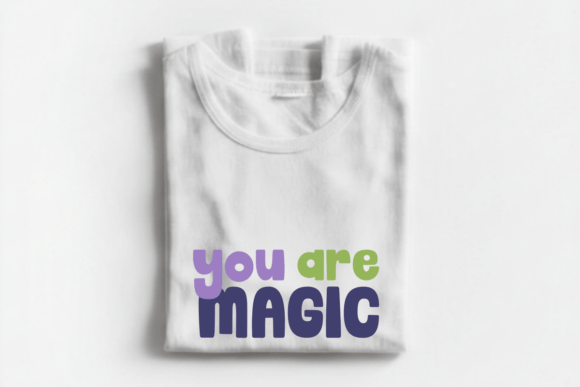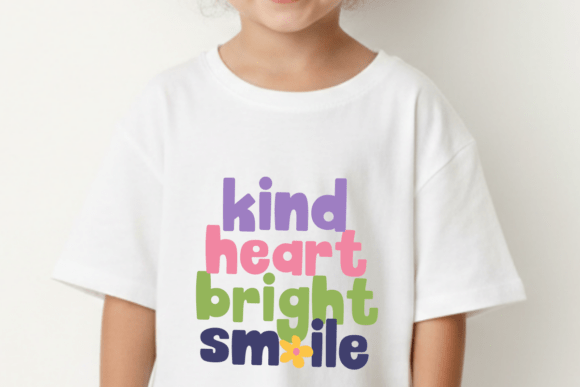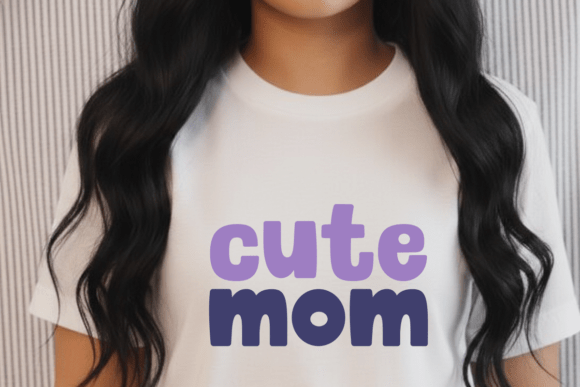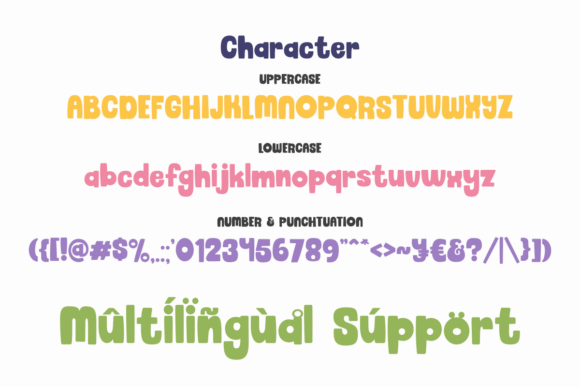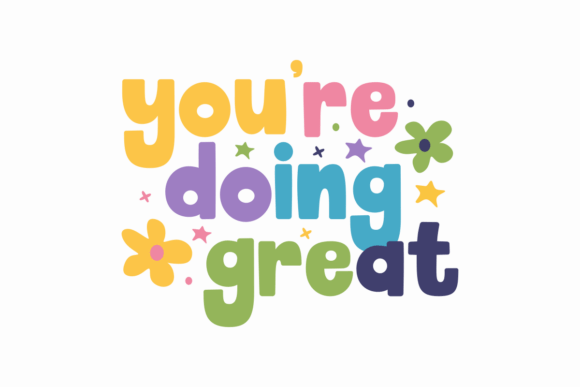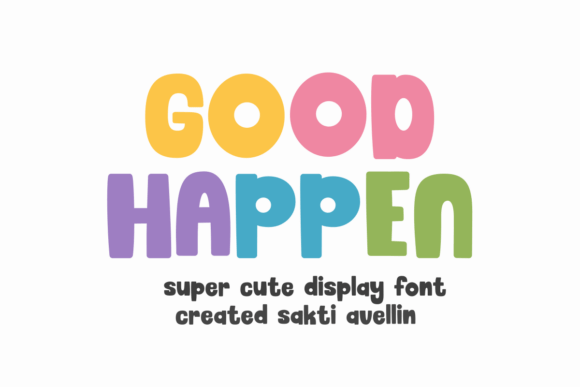
Introducing Good Happen Font: The Ultimate Choice for Fun and Engaging Designs
Are you a designer or crafter looking for a font that exudes positivity, warmth, and friendliness? Look no further than the Good Happen font! This artfully crafted display font is uniquely characterized by its bold yet tender shapes, making it the perfect choice for projects aimed at a younger demographic or those with a family-friendly appeal.
The Perfect Font for Family-Friendly Projects
The Good Happen font is specifically designed to lend a vibrant, captivating touch to various projects, including toy store logos, children’s apparel branding, and playground signage. Its robust, bubbly demeanor makes it an excellent choice for creating eye-catching designs that appeal to kids and families. Whether you’re working on a project for a children’s product or service, Good Happen is the perfect font to add a fun and engaging vibe.
Enhance Your Brand with Good Happen
Good Happen is not just limited to toy stores and children’s apparel. This versatile font can also be used to enhance the visual attraction of snack labels, juice branding, children-based nutritional products, and skincare goods specifically tailored for children. With Good Happen, you can create charming and engaging designs that appeal to kids and parents alike.
Creative Applications of Good Happen Font
The Good Happen font is not just limited to branding and packaging. It’s also a sought-after choice for creating charming birthday card designs, adorable stickers, and eye-catching designs for mugs and T-shirts. Its robust design makes it stand out as a header in children’s storybooks, turning each page into a vibrant adventure. Moreover, it can add a fun and engaging vibe to school event posters, making it the perfect choice for designers and crafters.
Why Choose Good Happen Font?
So, why choose Good Happen font for your next project? Here are just a few reasons:
- Positivity and warmth: Good Happen font exudes an aura of positivity, warmth, and friendliness, making it perfect for family-friendly projects.
- Bold yet tender shapes: The font’s unique shapes are both bold and tender, making it appealing to kids and adults alike.
- Versatility: Good Happen font can be used for a wide range of projects, from branding and packaging to stationery and children’s book headers.
- Easy to read: Despite its bold and playful design, Good Happen font is easy to read, making it perfect for body text and headlines.
Tips for Using Good Happen Font
Here are some tips for using Good Happen font in your next project:
- Pair with neutral fonts: Pair Good Happen font with neutral fonts to create a balanced design.
- Use for headlines and titles: Good Happen font is perfect for headlines and titles, adding a fun and engaging vibe to your design.
- Experiment with colors: Good Happen font looks great in bright and bold colors, so don’t be afraid to experiment and find the perfect hue for your design.
| Font Name | Good Happen Font |
| Author | Sakti Avellin |
In conclusion, Good Happen font is the ultimate choice for designers and crafters looking for a fun and engaging font for their next project. With its bold yet tender shapes, positivity, and warmth, this font is perfect for family-friendly projects, branding, packaging, and more. Whether you’re working on a children’s product or service, or simply want to add a fun and engaging vibe to your design, Good Happen font is the perfect choice.